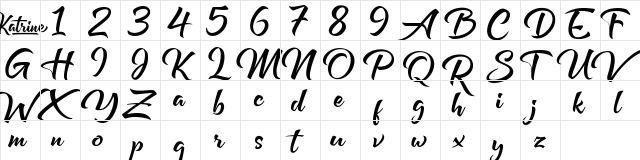
Katrine Regular Font Preview
Katrine Regular
Katrine Regular Font Details
| Designer | Subectype. 2019 |
Design Context for Katrine Typeface
Katrine is a composed and adaptable typeface that performs quietly and consistently across a wide range of design contexts.